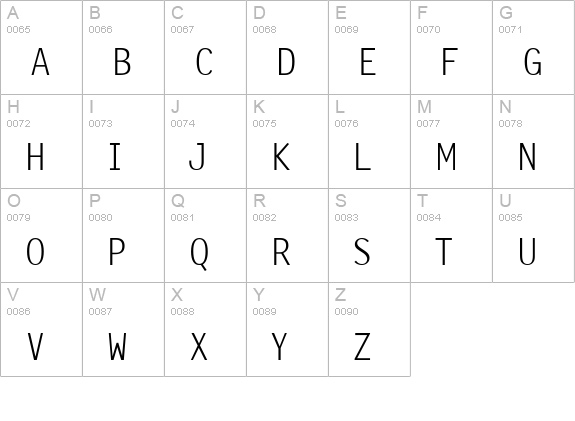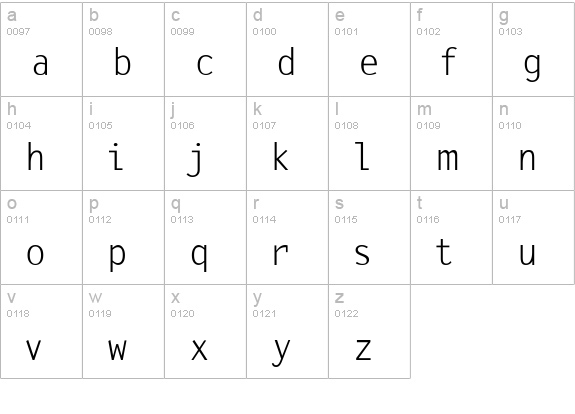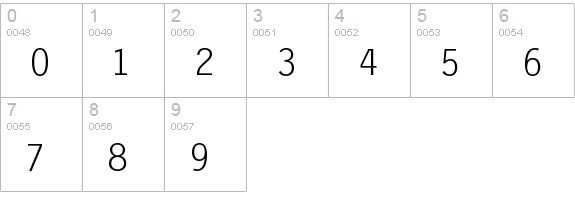
PFLetterGothicThree Light is a refined, elegant variant in the PFLetterGothicThree typeface family \xE2\x80\x94 well suited to elegant body text, refined sub-headings, and luxury branding.
PFLetterGothicThree Light is a stylish and modern font that exudes elegance and sophistication. Its sleek and clean lines make it perfect for a wide range of design projects, from branding to editorial layouts. The delicate thin strokes of this typeface give it a unique and refined appearance, adding a touch of sophistication to any design. This font is not only beautiful but also versatile, making it suitable for various applications such as logos, headlines, posters, and more. Its light weight adds a touch of airiness and delicacy to your designs, creating a sense of refinement and elegance. The best part? PFLetterGothicThree Light is available for free download at FontsMarket.com. So, whether you're a designer looking to add a touch of sophistication to your projects or a business owner wanting to elevate your branding, this font is a must-have in your collection. Download it today and elevate your designs with this stunning and elegant typeface.